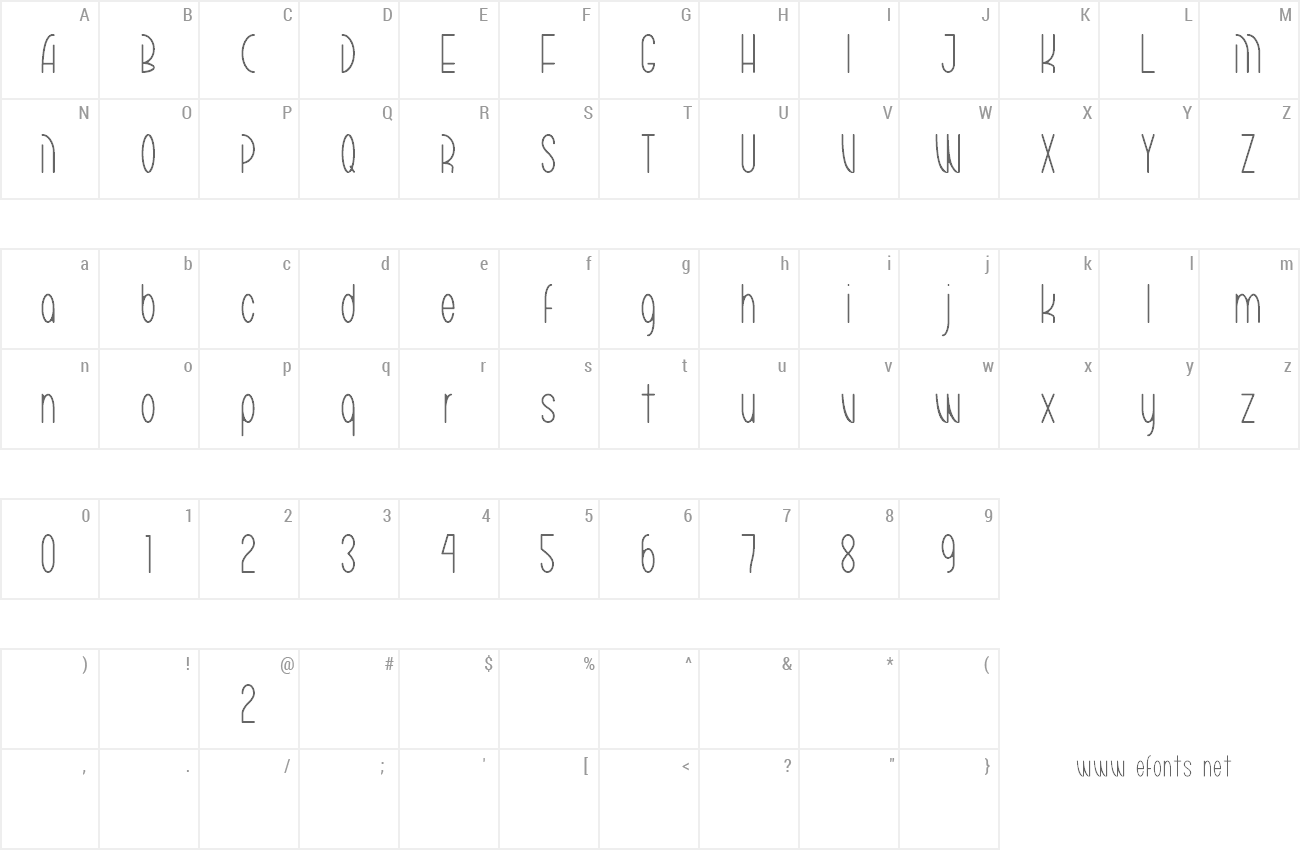
Preview and download Mariko Chan Font. Created by MuraKnockout Media + Design in Fancy Various styles with 100% Free license.
Check out my new Font Blog to stay up to see when I release new fonts! http://murafonts.blogspot.com/ ----------------------- Mariko is my sister's middle name. It is also my aunt's middle name and my second cousin's first name. It's sort of a family name. It is a fairly common name in Japan. This number and letter is inspired by my family and my Japanese heritage. The Regular font is Bold and great for Titles or Heading Text, while the Thin version looks slightly hand written and compliments the regular version nicely. In combination, the sky is the limit. Enjoy! This is free to do with whatever you wish, personal or commercial. Just don't claim ownership, sell it, redistribute it, or be a jerk with it. Please DO NOT download this font and redistribute it on another website. It might be cool if you use the font to either credit MuraKnockout Media or Michael Muranaka, or show me how you used it! Enjoy! |